The weather is warm, the sun is shining, and my family and I are so happy to be able to spend time outside together! Yesterday was Rose’s last day of school for the summer, and we are so excited for all of our new adventures! Being out in nature is such a grounding, peaceful experience, and I love how these botanical fonts bring those elements to life through their letters.
I’ve been thinking a lot about branding lately. How much does a label or logo affect our perception of businesses and products? A lot, I can tell you.
These botanical fonts bring up soothing images of nature and the outdoors, and they’re absolutely perfect!
If your business is nature-related in any way, I’ll bet that branding with one of these spectacular fonts will boost your credibility a ton. I’m obviously not a marketing professional, but if your business selling organic soaps used the Amellya font anywhere in it’s branding, I would immediately associate it positively with nature and natural products. Catch my drift?
Even if you’re using these lovely fonts just for fun, I know you can’t go wrong. Earth Day, printables, fairies, you name it!
Now for our gorgeous botanical fonts!
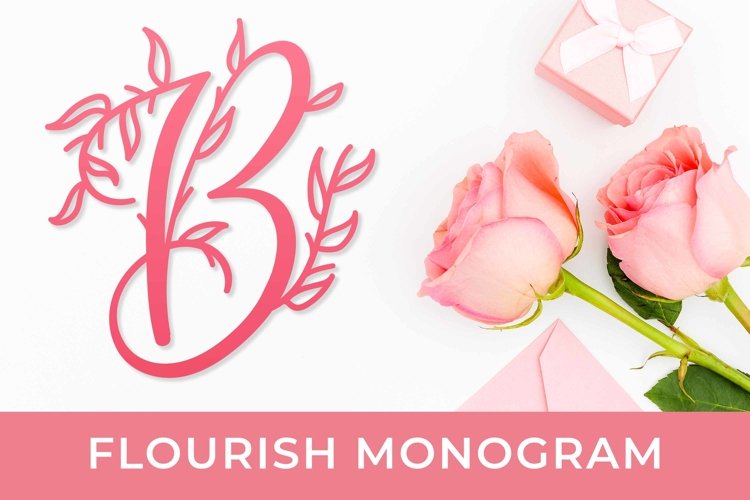
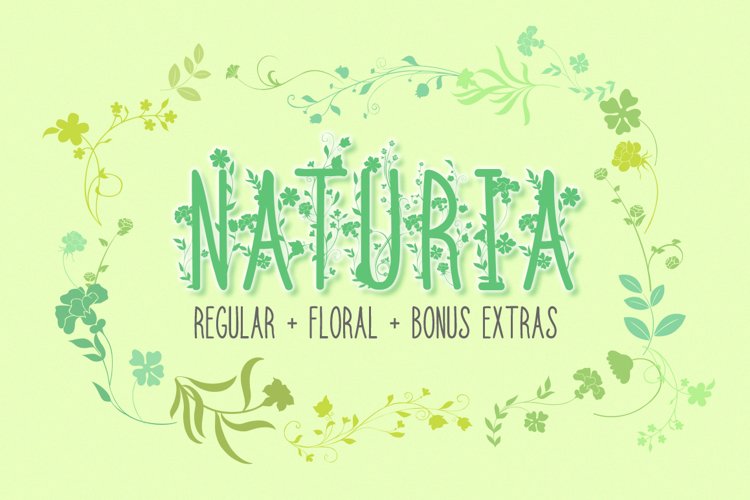
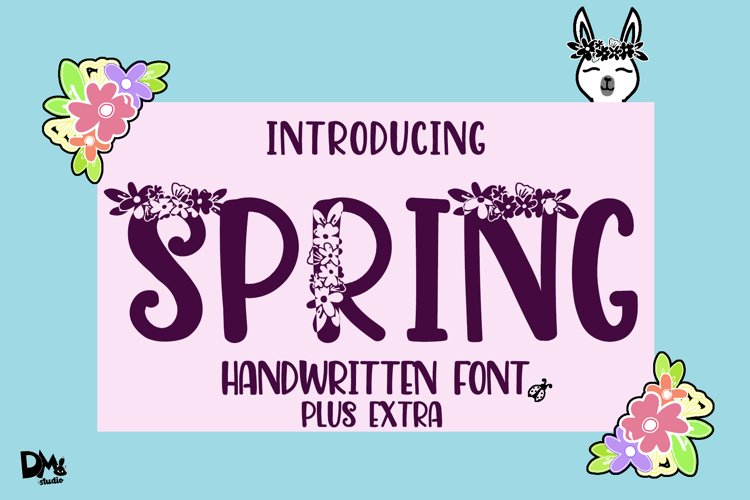
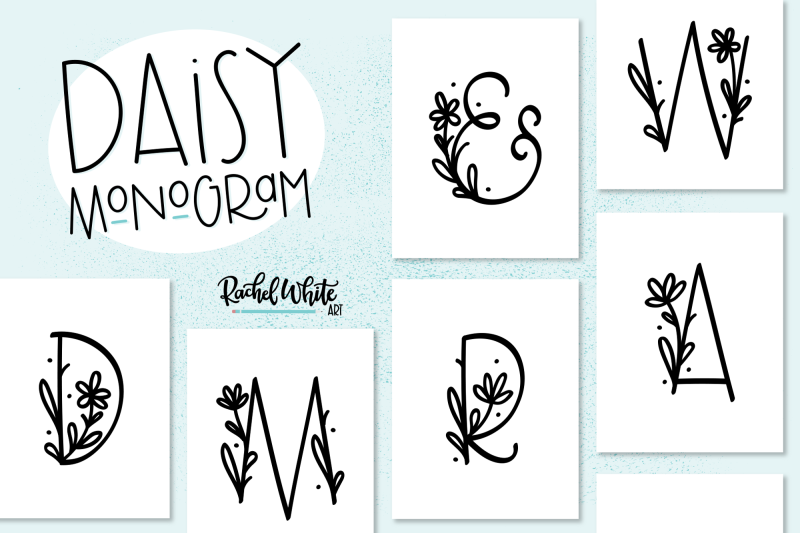
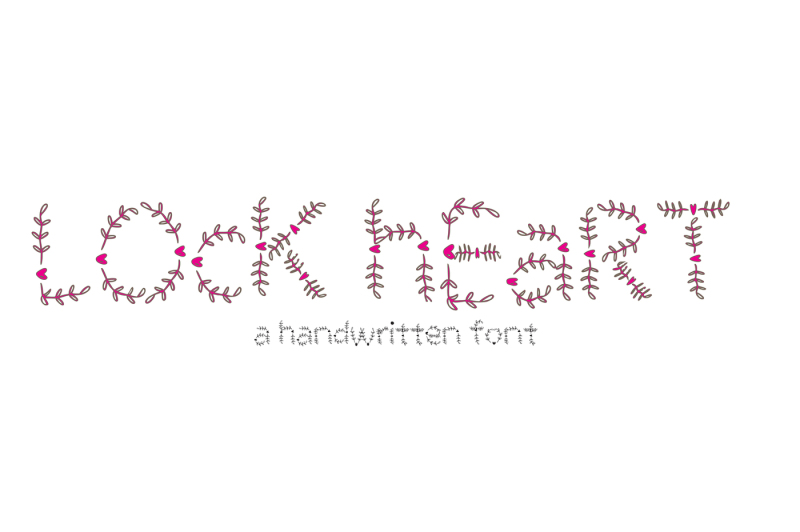
I was right, wasn’t I? These fonts are so great! I love how some of them are so elegant and others are playful. I hope you’ve found what you wanted!